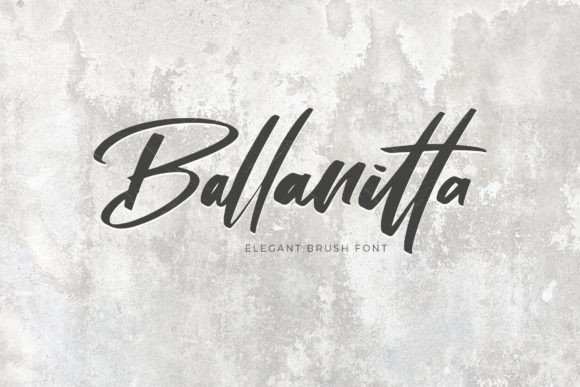
Unleash the Elegance with Bellanitta Font
Have you ever been stuck trying to find the perfect font to convey the sophistication and charm you envision for your design project? We’ve all been there – pouring over font libraries, searching for that elusive combination of style and elegance. For designers, the right font can make all the difference in capturing the essence of a brand or the tone of a message.
Enter Bellanitta, a stunning script font designed to bring a touch of refinement to your creations. With its unique brush style and character shapes, Bellanitta Font is perfect for adding a layer of sophistication to invitations, branding, logos, and more. Whether you’re working on a high-end fashion campaign or a romantic wedding invitation, this elegant font is sure to elevate your designs and leave a lasting impression.
Discover why Bellanitta Font has become a go-to choice for designers looking to add a touch of class to their projects. Read on to learn more about this versatile and stylish font.
Bellanitta Font Key Features
- Unique Characteristics: Elegant, modern script font with a unique blend of cursive and calligraphic elements
Bellanitta Font Review
As a designer, I had the opportunity to work with the Bellanitta Font, and I must say it’s a mixed bag. On the positive side, I appreciate its elegant and sophisticated vibe ✨. The font’s unique blend of modern and vintage elements makes it perfect for luxury branding and high-end design projects.
One of the things that work well is its legibility. The font is highly readable, even at smaller font sizes, making it ideal for body text. The font also comes in a range of weights, from light to bold, which allows for flexibility in design.
While Bellanitta Font has its strengths, it’s not without its limitations ⚠️. One of the main issues is its lack of versatility. The font’s design makes it less suitable for modern and minimalist designs, where simplicity is key. Additionally, the font’s complexity can make it difficult to pair with other fonts, limiting its application.
Overall, I think the Bellanitta Font is a solid choice for designers who want to create a luxurious and sophisticated aesthetic. However, it may not be the best fit for every design project. With some careful consideration and planning, this font can be a valuable addition to any designer’s toolkit.
- ✨ Elegant and sophisticated design
- ✨ Highly readable and legible
- ✨ Range of weights for flexibility
- ⚠️ Limited versatility
- ⚠️ Can be difficult to pair with other fonts
The Bellanitta font is ideal for:
- Designing feminine and elegant graphics.
- Creating invitations, wedding stationery, and other special occasion materials.
- Adding a touch of sophistication to social media posts and presentations.